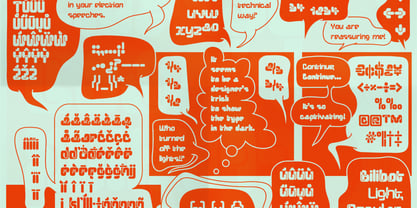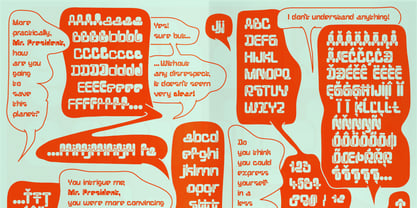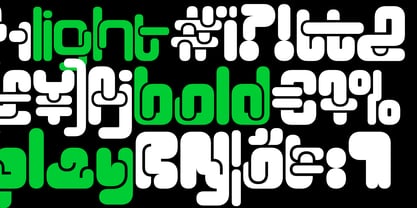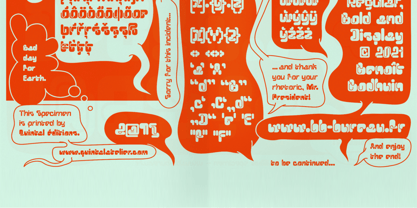
Bilibot
by bb-bureau
The Bilibot Font Family was designed by Benoît Bodhuin and published by bb-bureau. Bilibot contains 4 styles and family package options. More about this family
Bilibot is the missing link between Wim Crouwel and comics fonts.
Designers: Benoît Bodhuin
Foundry: bb-bureau